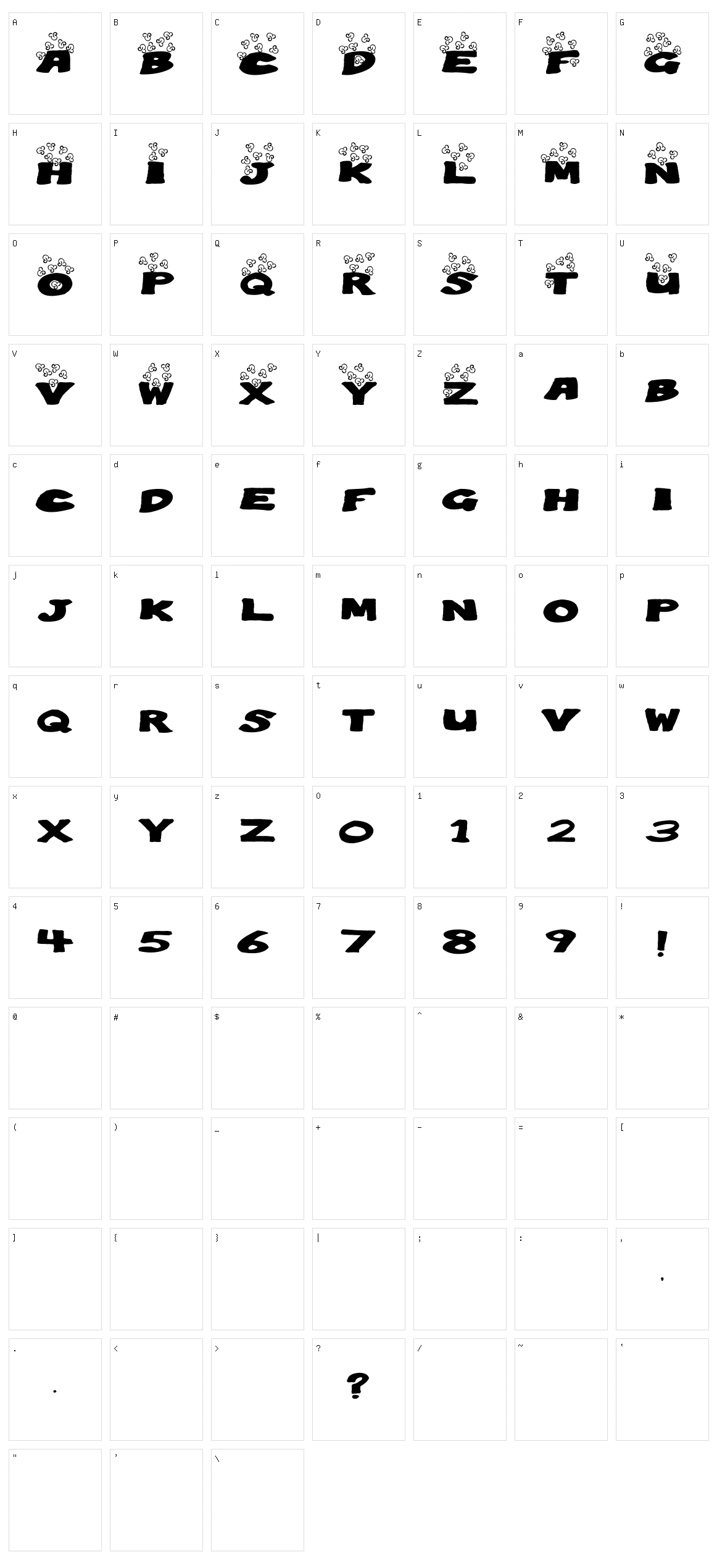
The free font Popping Popcorn is carefully designed by Pearlygates, showcasing a thoughtful balance of creativity and usability and falls under the Cartoon font style. When you download the ZIP file, it contains only 18.24 KB of font files, making it lightweight and quick to download. Please review the license details below to understand permitted usage and distribution rights. If license information is not available, we recommend using this font for personal projects only or contacting the author directly for commercial usage permissions.